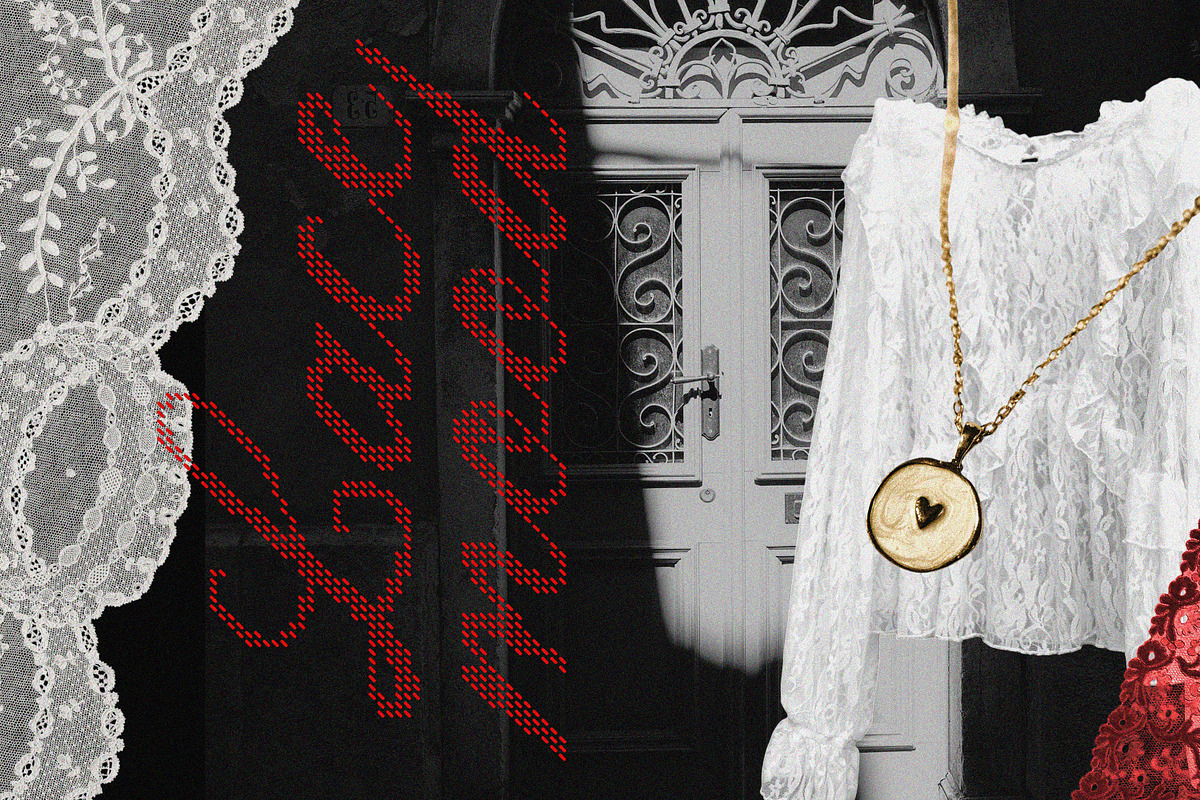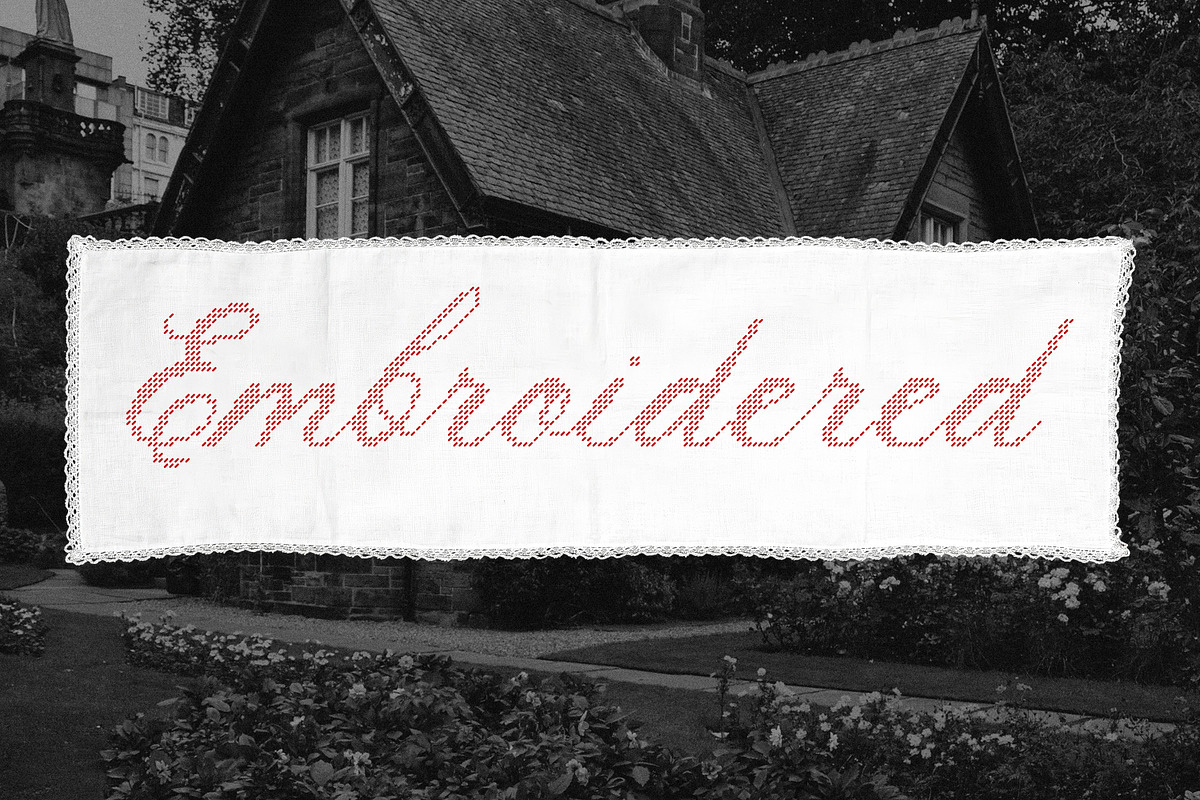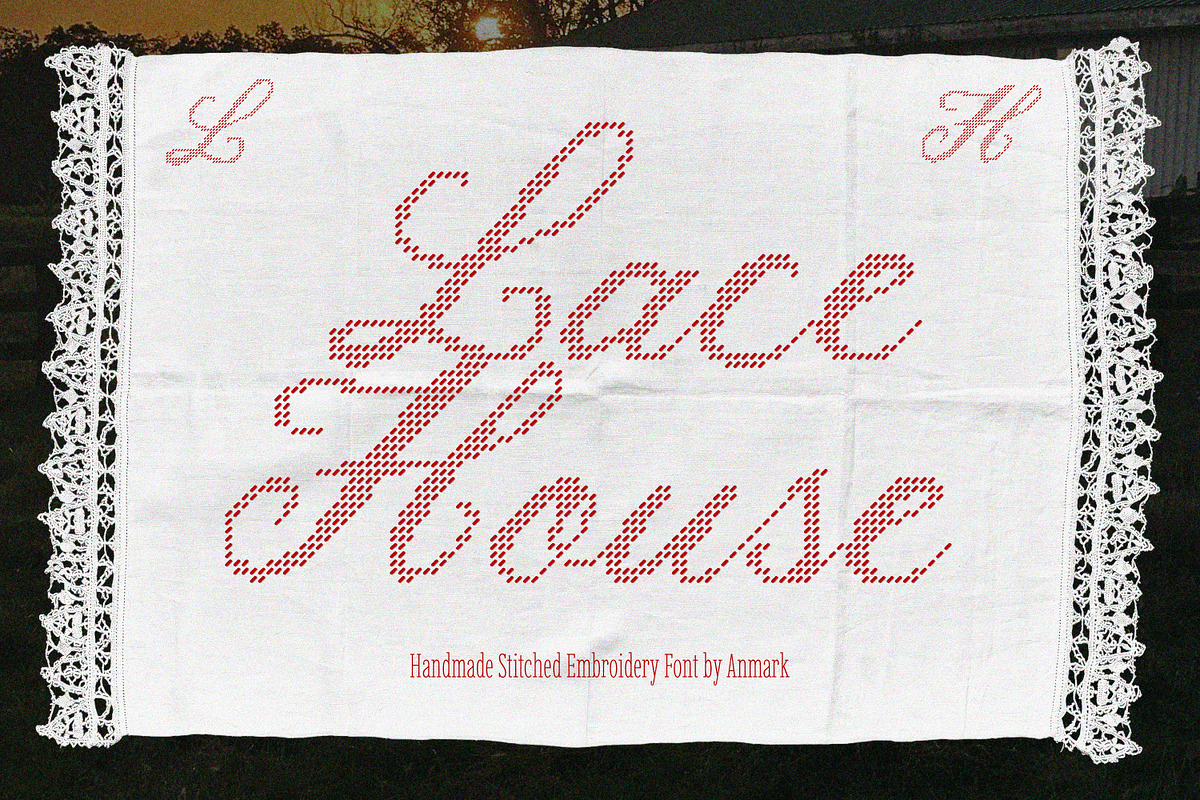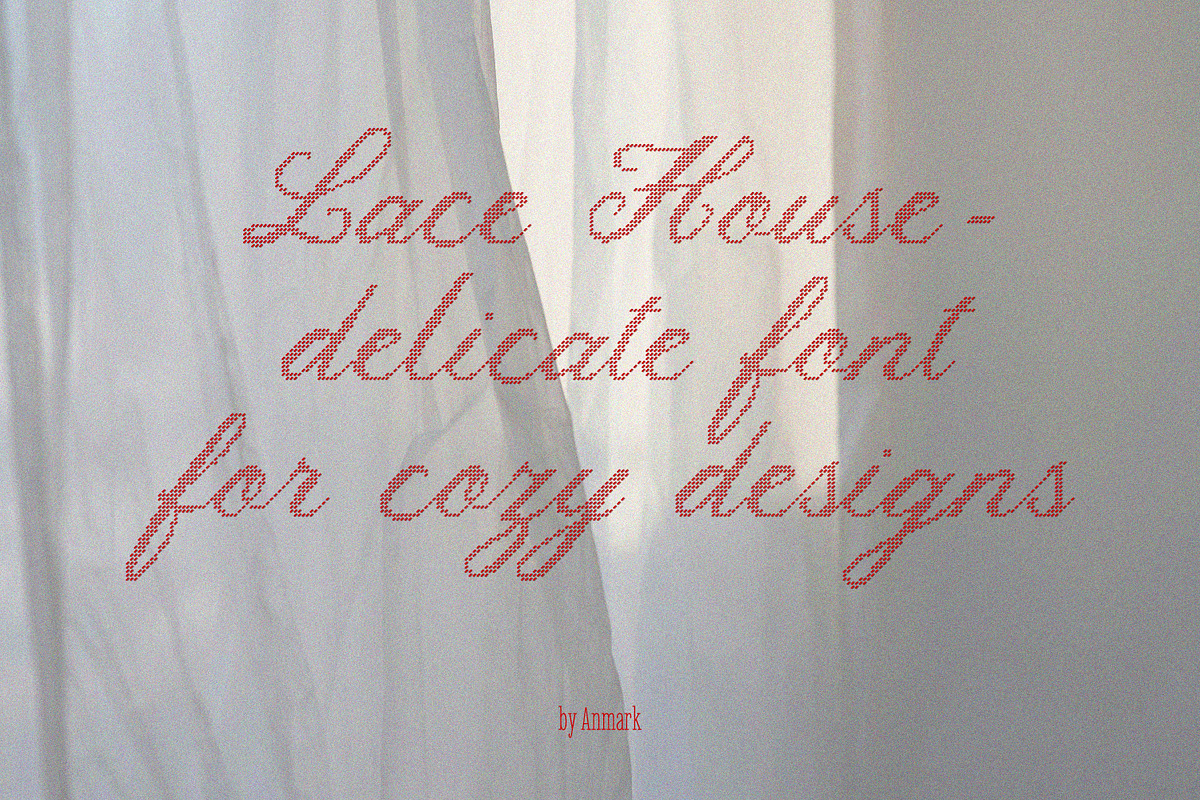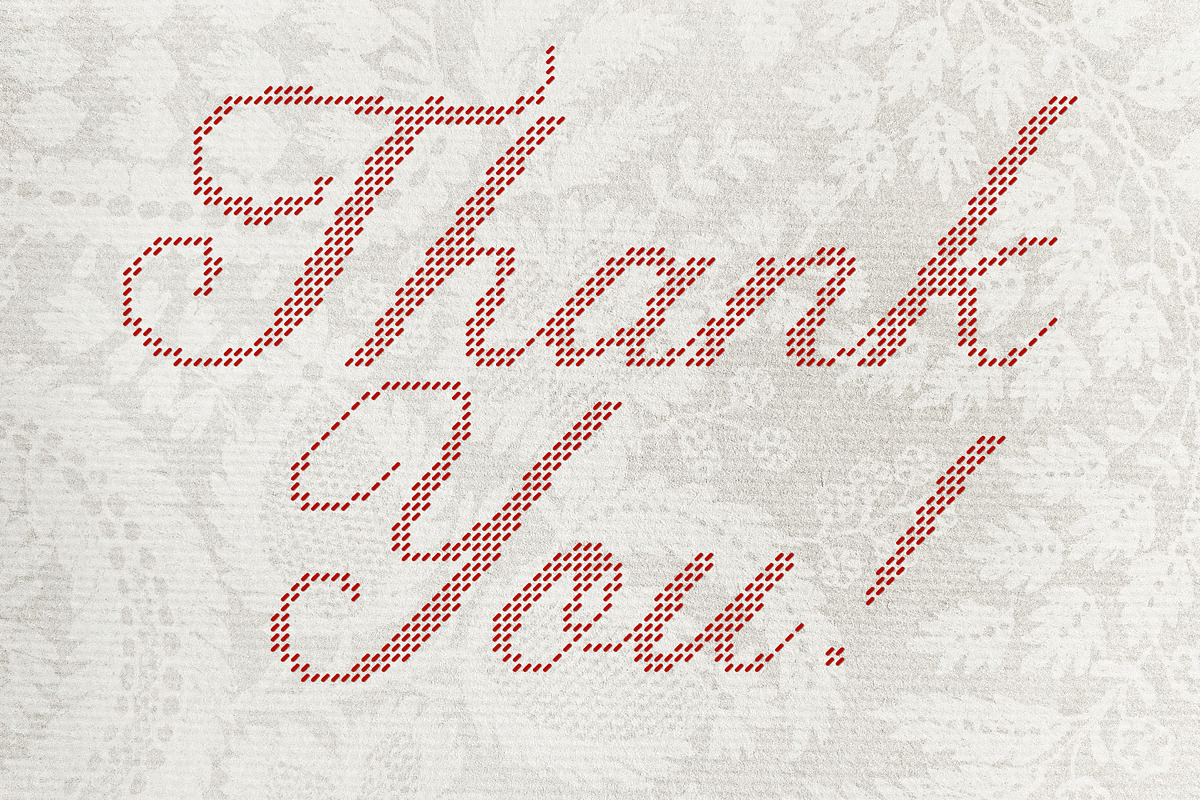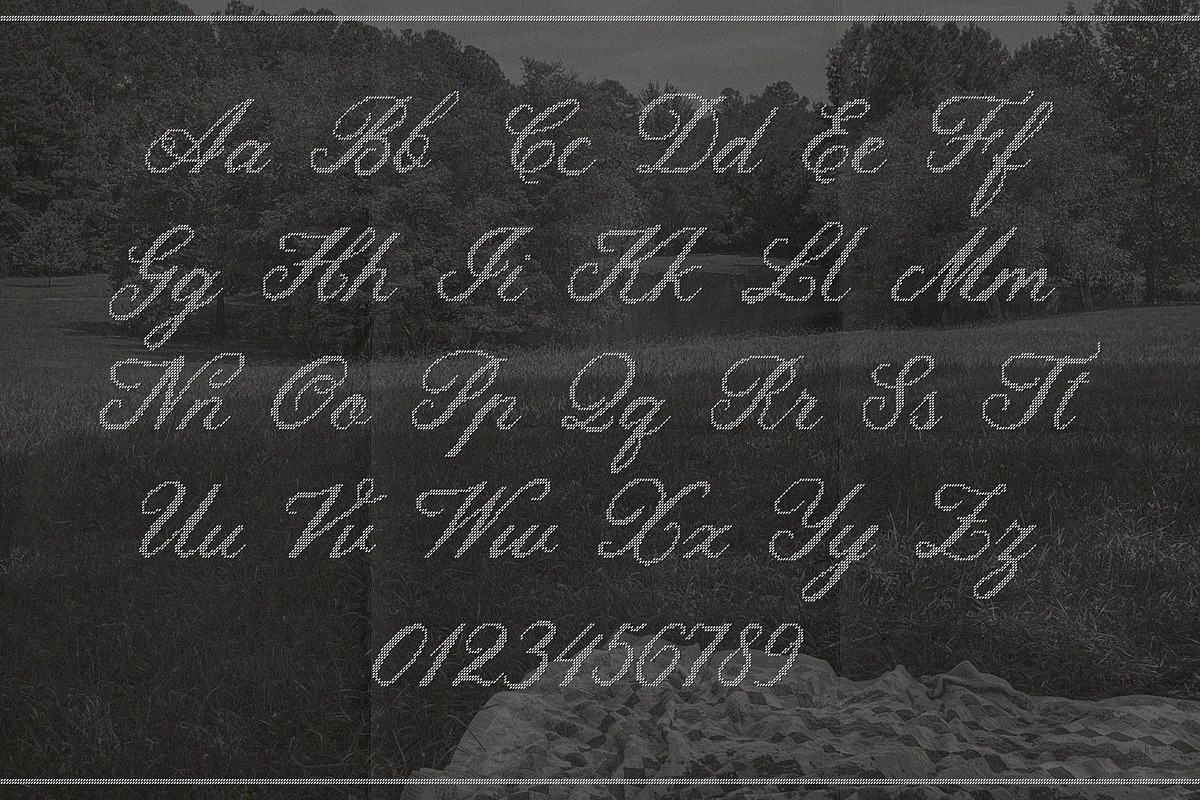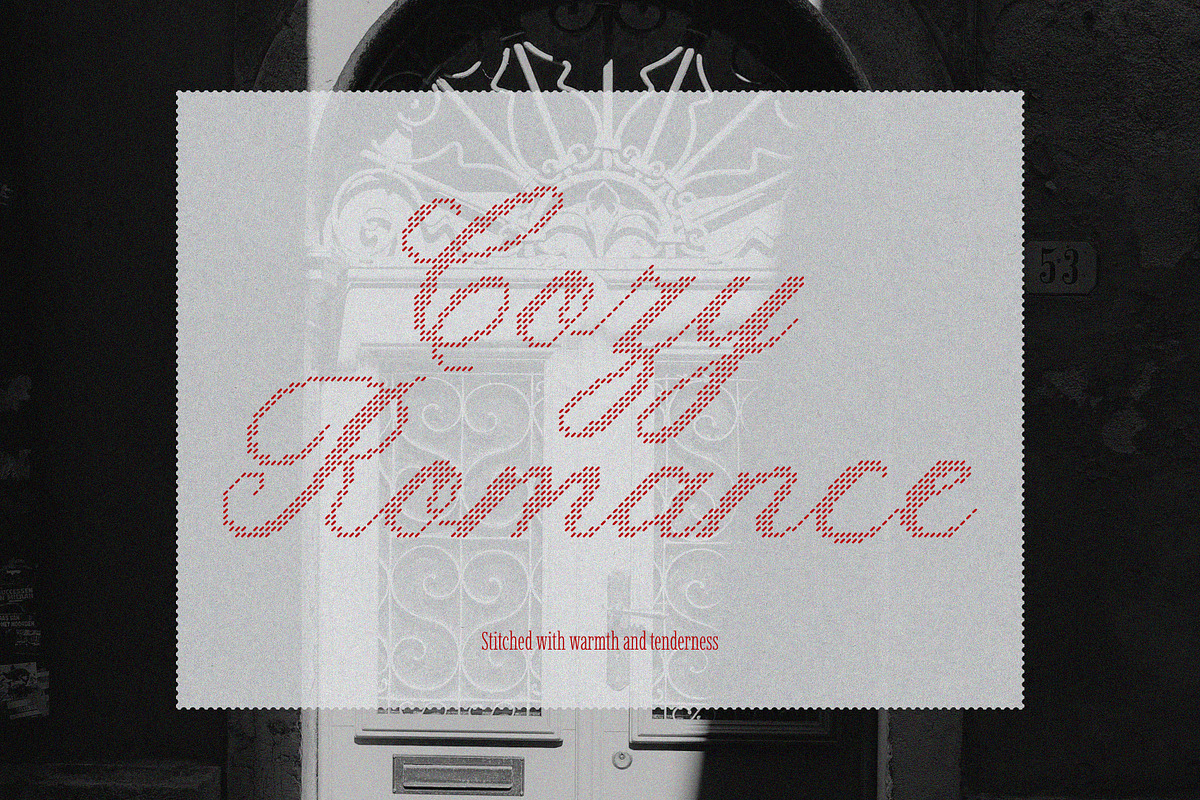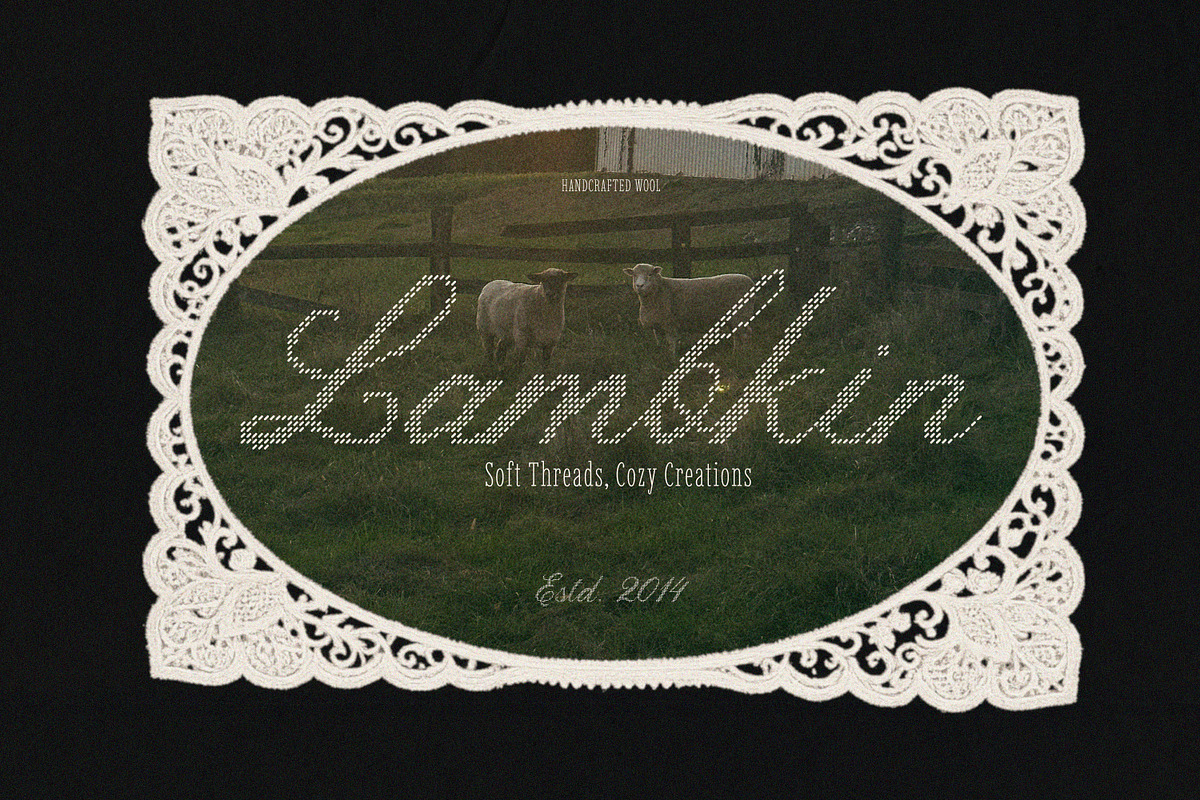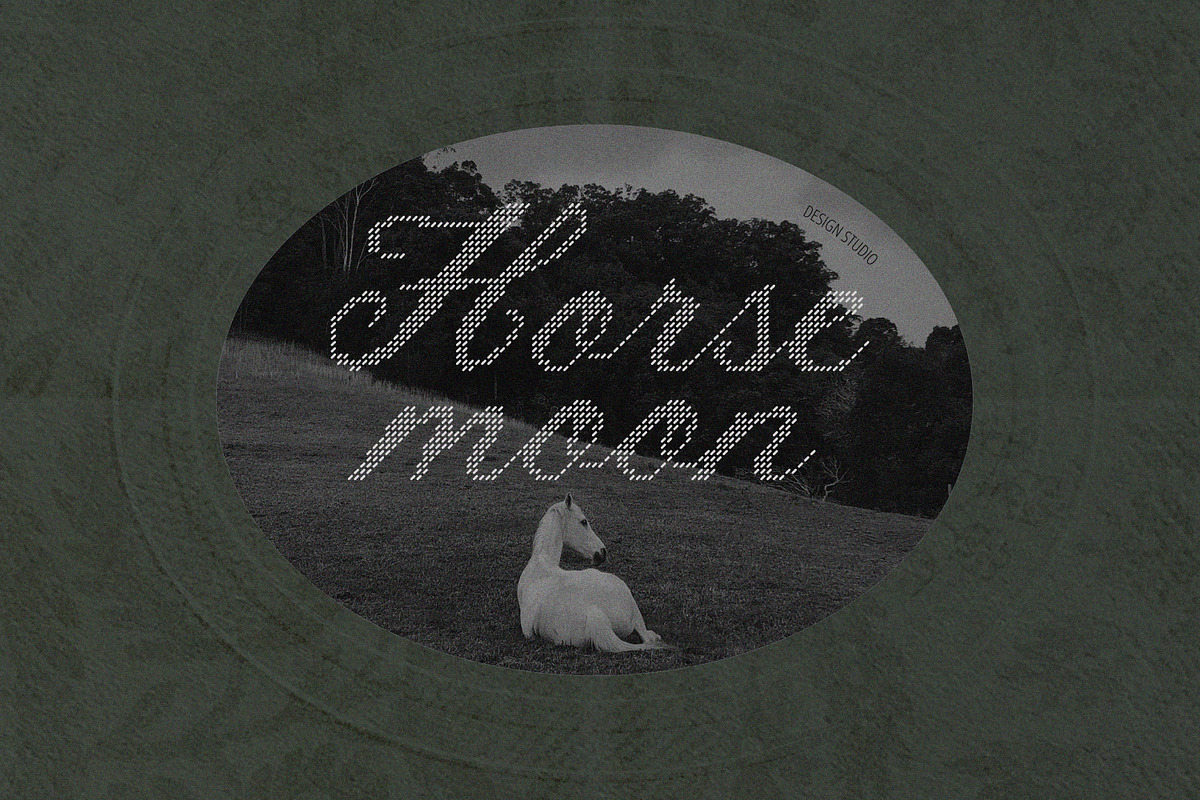
Lace House Stitched Embroidery Font
Lace House is a delicate stitched-inspired calligraphy font designed to capture the warmth and charm of handmade craftsmanship. Inspired by embroidery textures and the softness of thread on fabric, it brings a gentle, tactile feel to every word, like something carefully sewn, not simply written.
Elegant yet cozy, Lace House blends decorative beauty with a handcrafted character, making it perfect for designs that need a personal, heartfelt touch. It feels romantic, nostalgic, and quietly refined, ideal for projects where warmth and detail matter.
Logos and brand identities
Monograms and signature marks
Wedding invitations and stationery
Packaging and product labels
Handmade and craft-inspired designs
Boutique, fashion, and lifestyle visuals
Quotes, cards, and decorative typography
With Lace House, every word feels a little more personal, like it was made by hand.